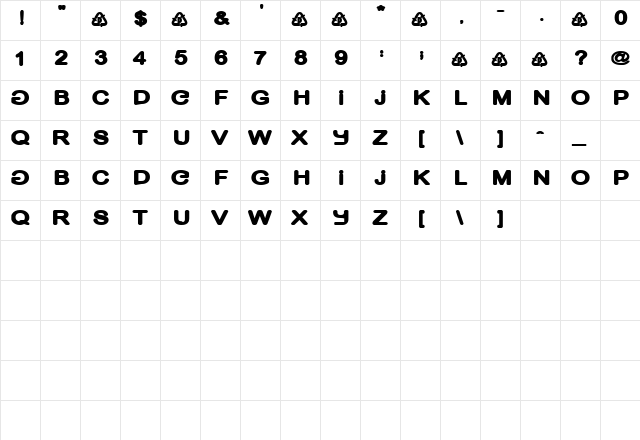
Sixteen Regular
Design Context for Sixteen Typeface
Sixteen is a composed and adaptable typeface that performs quietly and consistently across a wide range of design contexts.